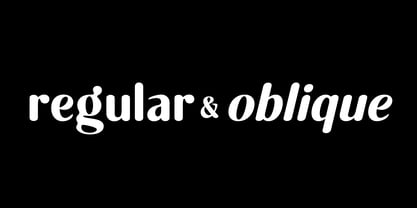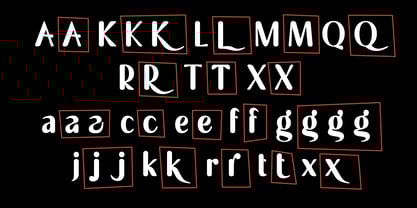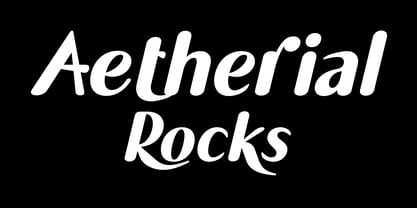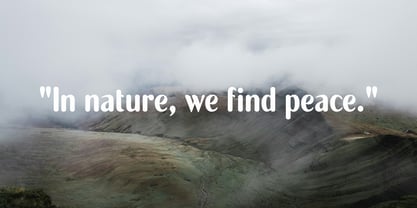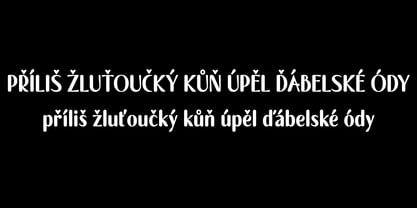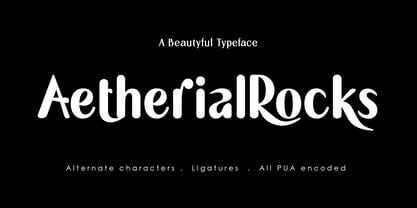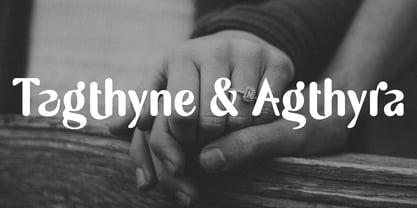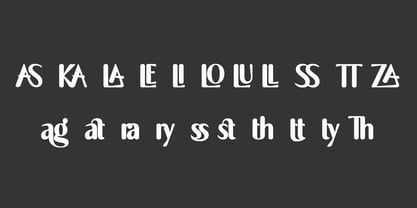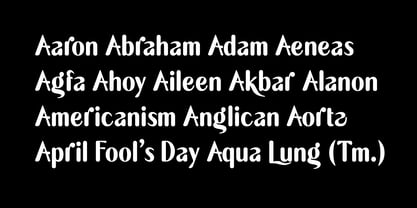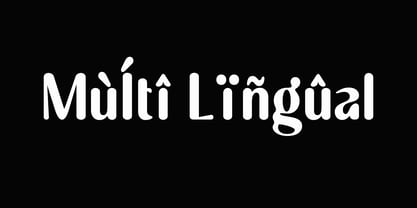
Aetherialrocks
The Aetherialrocks Font Family was designed by Erhan Untoro and published by EruStudio. Aetherialrocks contains 2 styles and family package options. More about this family
Aetherialrocks is a stunning display typeface that combines modern elegance with a playful, artistic twist. Designed with smooth, flowing curves and distinctive letterforms, this font instantly captures attention and brings a fresh, creative vibe to any project. Available in both Regular and Oblique styles, Aetherialrocks is versatile enough to suit everything from high-end branding to bold and expressive editorial designs.
What sets Aetherialrocks apart is its attention to detail. Every letter has been carefully crafted for perfect balance and visual harmony, while alternate characters and elegant ligatures add a unique flair to your typography. With full PUA encoding, you can easily access all stylistic alternates and special features without additional design software, making it a joy to use for both beginners and professional designers.
Perfect for logos, packaging, fashion editorials, social media graphics, posters, invitations, and more, Aetherialrocks adapts effortlessly to both minimal and elaborate layouts. Whether you want to create a sleek modern aesthetic or add a touch of whimsy and sophistication, this font delivers maximum impact with minimal effort.
Bring your designs to life with the timeless beauty and stylish charm of Aetherialrocks.